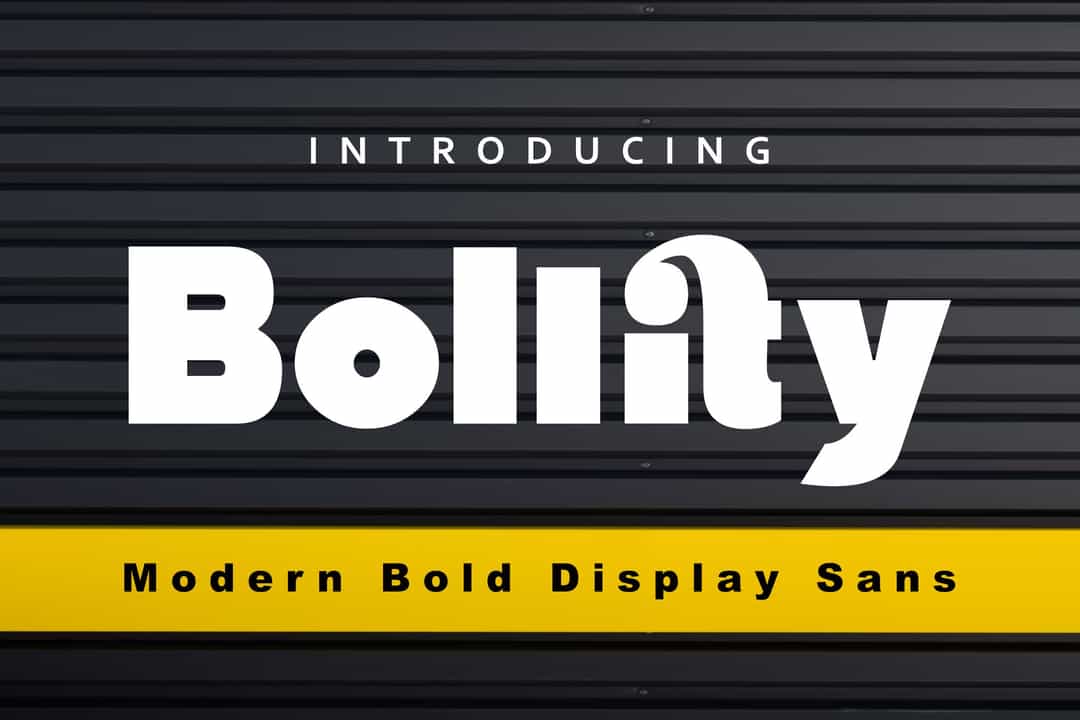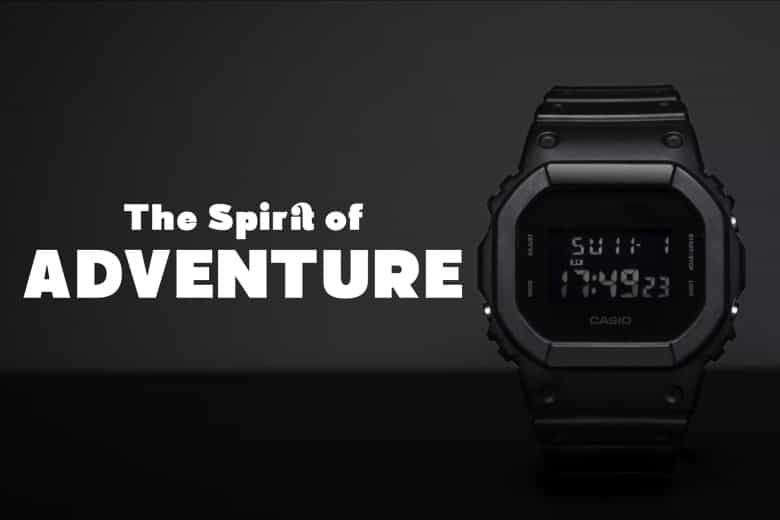
Bollity is an impressive geometric sans serif font with a striking body and unique ligature, making it an eye-catching font for many projects. Bollity’s heavy and striking design make it suitable for headlines, branding and much more; Bollity will help ensure that your message will get noticed! With its contemporary and lively style, Bollity provides versatile branding as well as advertising/editorial designs.